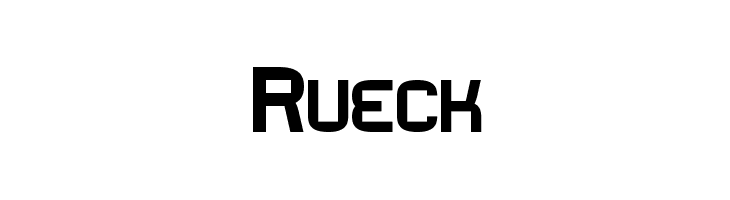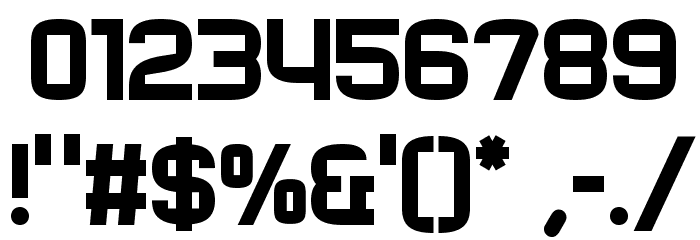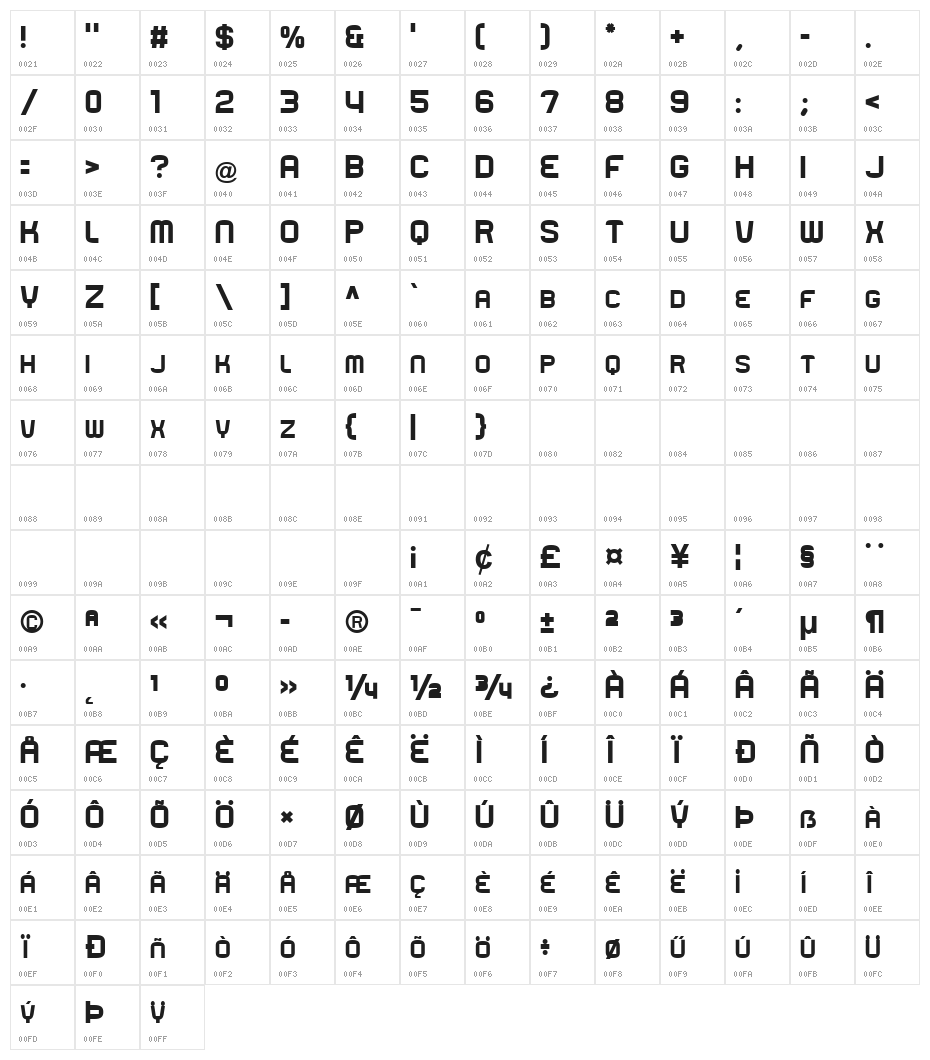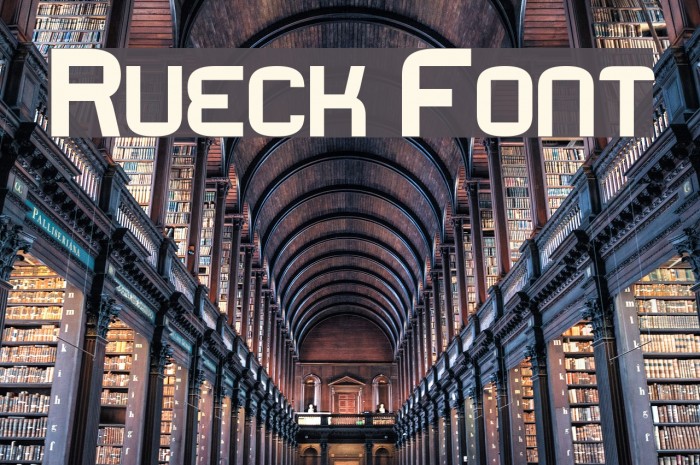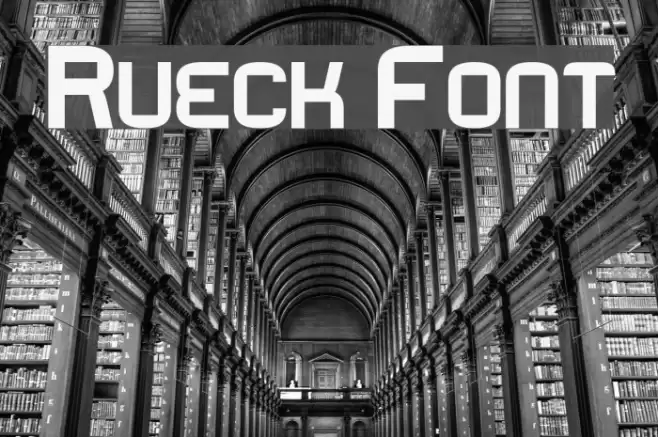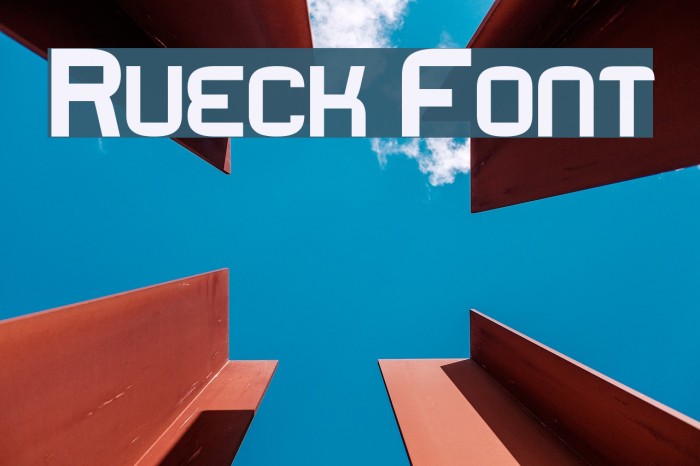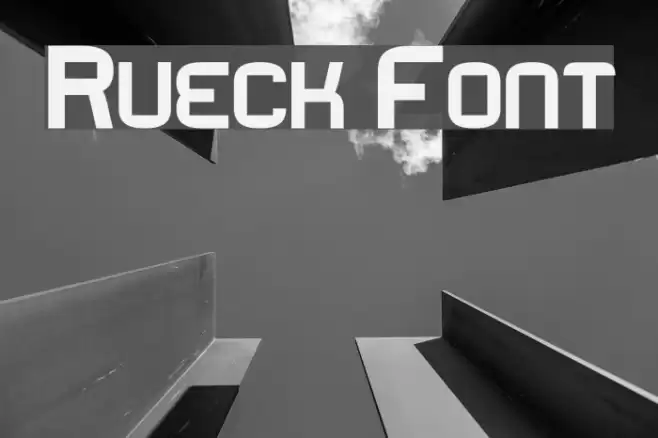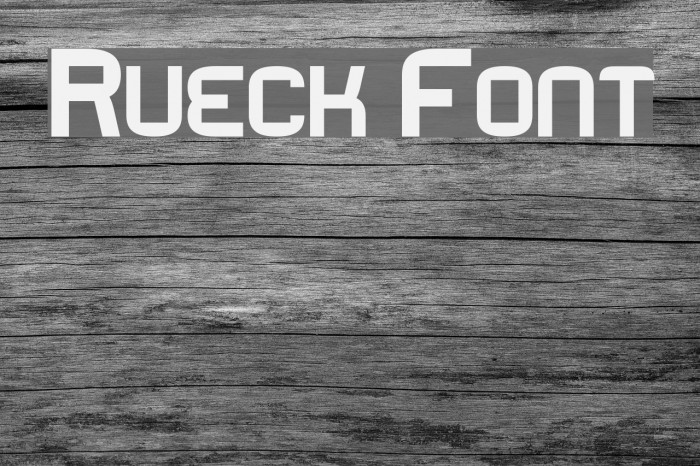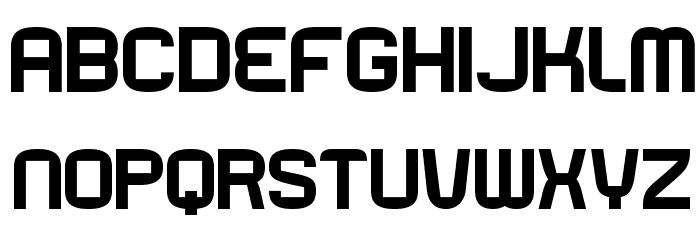
Rueck Font
Rueck Description
This font features a bold, geometric design with a strong presence. The characters are uniformly structured, with a consistent stroke width that gives it a modern and robust appearance. The uppercase letters are particularly striking, with a square-like form that emphasizes their boldness. The lowercase letters maintain the same geometric style, ensuring a cohesive look across all text. Numbers and special characters are designed to match the overall aesthetic, making them easily legible and visually appealing. This font's clean lines and solid structure make it ideal for impactful designs.